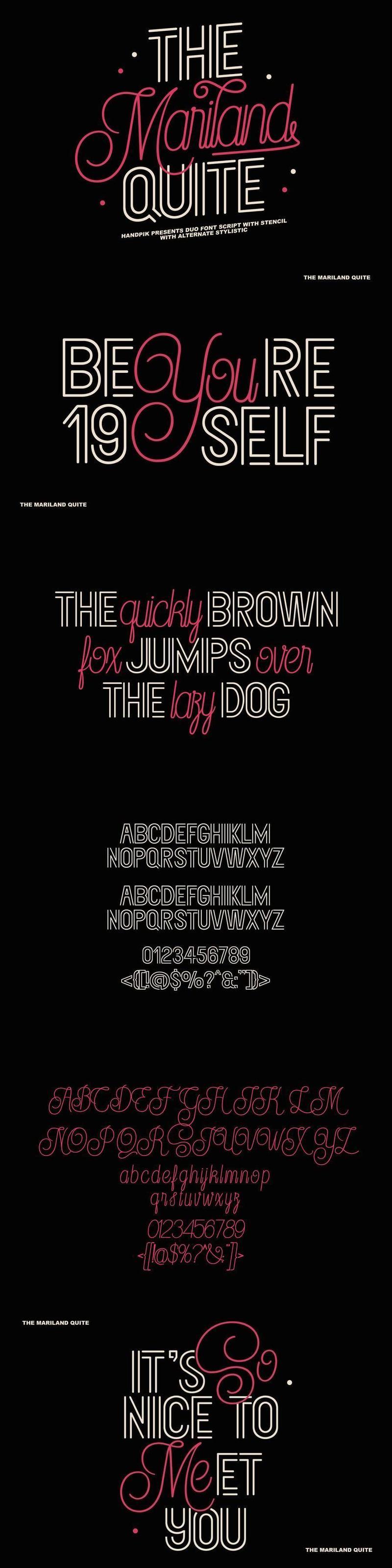
The Mariland Quite 63MJJAN
**The Mariland Quite** will perfect for many project: book, magazines, logo, branding, photography, quotes, blog header, poster, advertisements, etc.